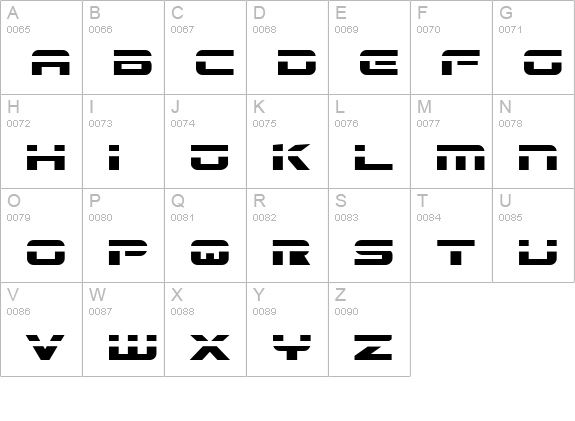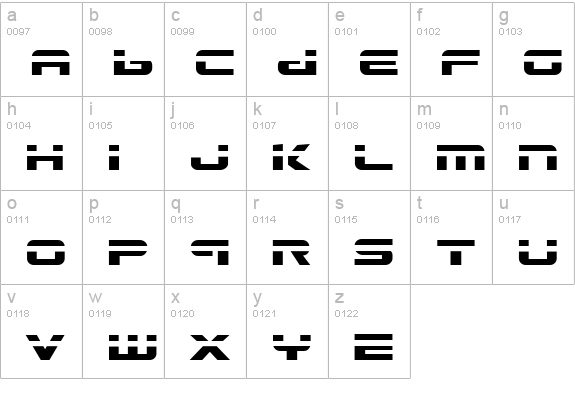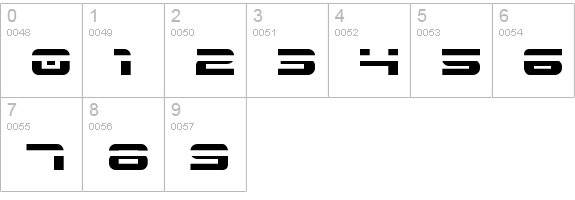
Gunship Laser font is a futuristic and edgy typeface that exudes power and boldness. With its sharp angles and sleek design, this font is perfect for creating eye-catching headlines, titles, and logos. The Gunship Laser font is versatile and can be used for a variety of design projects, from movie posters to gaming graphics to tech-related branding. The best part? Gunship Laser font is completely free to download at FontsMarket.com. Simply head over to the website and add this dynamic font to your collection without any cost. Don't miss out on the opportunity to enhance your designs with the striking Gunship Laser font today!